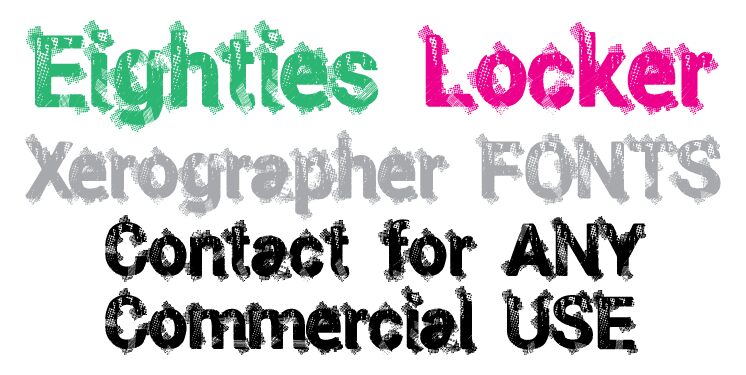
EightiesLocker from Xerographer Fonts is a free eroded display font with stout, high-contrast letters and a deliberately battered surface. Dense stippling, diagonal scratches, and offset fragments make the type look layered from mismatched print impressions.
Packaging is a strong home for its noisy ink texture, especially on retro snacks or music releases. It also suits concert posters and magazine covers. The scattered halftone debris can echo photocopied photography or distressed collage artwork.